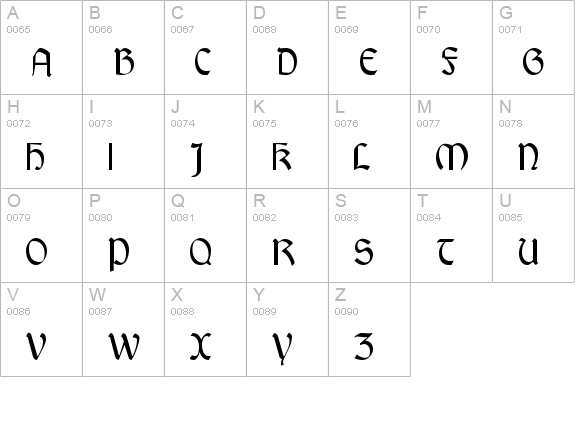
GaelicCondensed Regular Font Details
GaelicCondensed Regular is the standard, neutral variant in the GaelicCondensed typeface family \xE2\x80\x94 well suited to general body text, paragraphs, and standard typographic work.
GaelicCondensed Regular font is a stunning display typeface that effortlessly combines elegance with a touch of traditional Celtic charm. Its timeless design and unique letterforms make it an ideal choice for adding a touch of sophistication to any project. With its condensed letter spacing, GaelicCondensed Regular font is perfect for headlines, titles, and other attention-grabbing elements. The slim, elongated characters create a refined and luxurious feel, while still maintaining excellent legibility. This font is perfect for adding a touch of Celtic flair to your designs. Whether you're working on a poster, a logo, or a website, GaelicCondensed Regular font will make your text stand out and command attention. And the best part? GaelicCondensed Regular font is freely available to download at FontsMarket.com. You can easily access this stunning font without any cost, making it an excellent choice for designers on a budget or those who simply appreciate the value of a high-quality typeface. So why wait? Download GaelicCondensed Regular font today and elevate your design projects to new heights with its exquisite and captivating style.